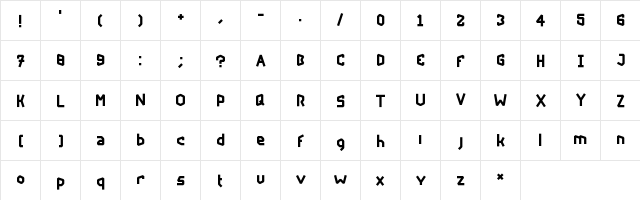
Rockfire Regular
| Designer | Jay Cobs |
Design Context for Rockfire Typeface
Rockfire takes a measured approach to typography — its balanced proportions and neutral character make it a reliable workhorse for both digital and print work.